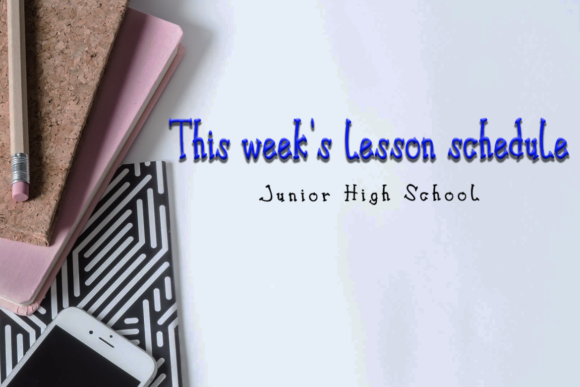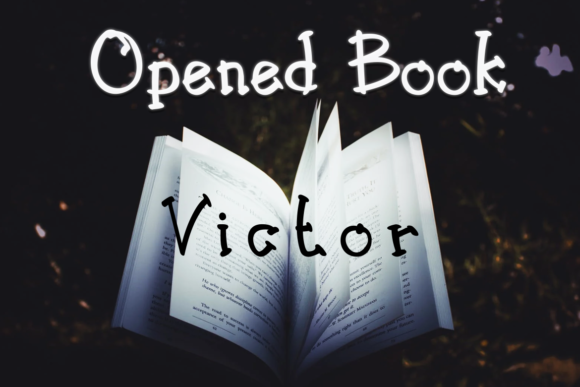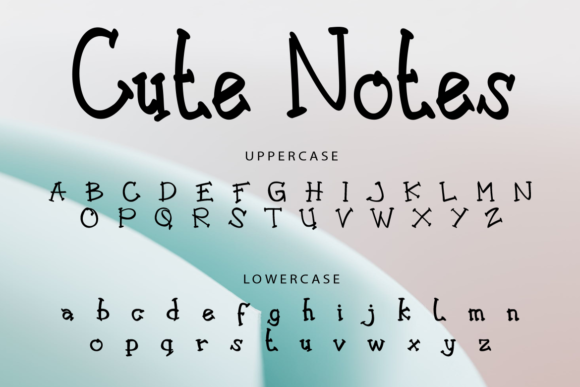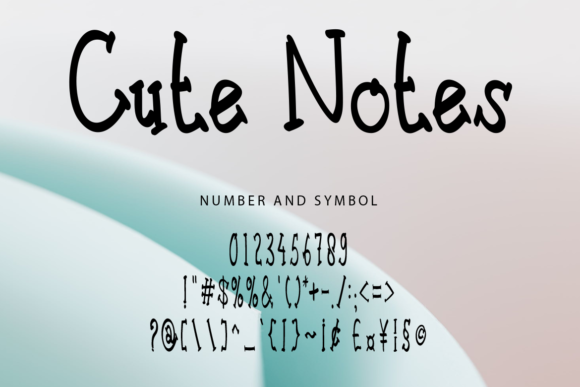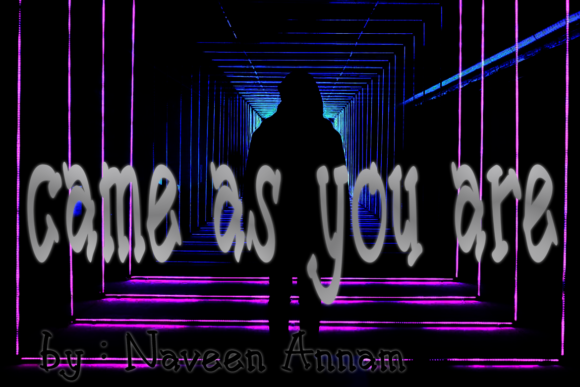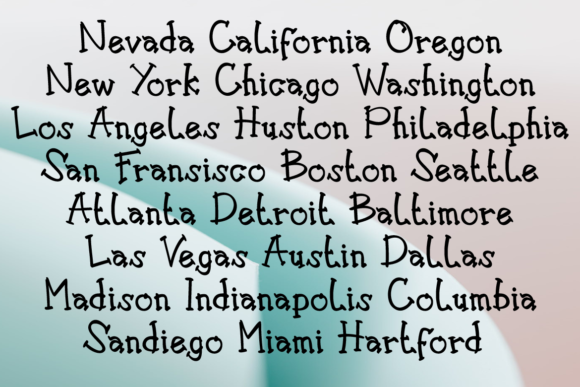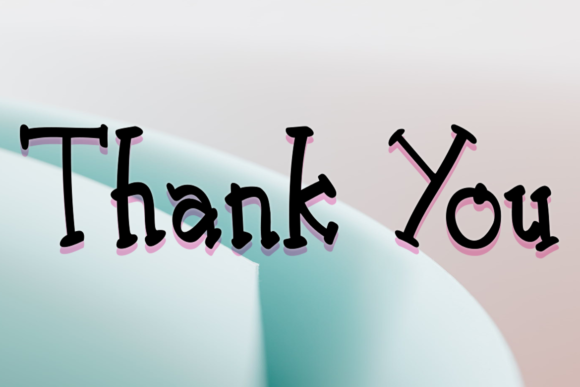
About Cute Notes Font
Cute Notes is a cute and casual handwritten font with an incredibly friendly feel. Whether you’re looking for fonts for Instagram or calligraphy scripts for DIY projects, Cute Notes will turn any creative idea into a true piece of art!